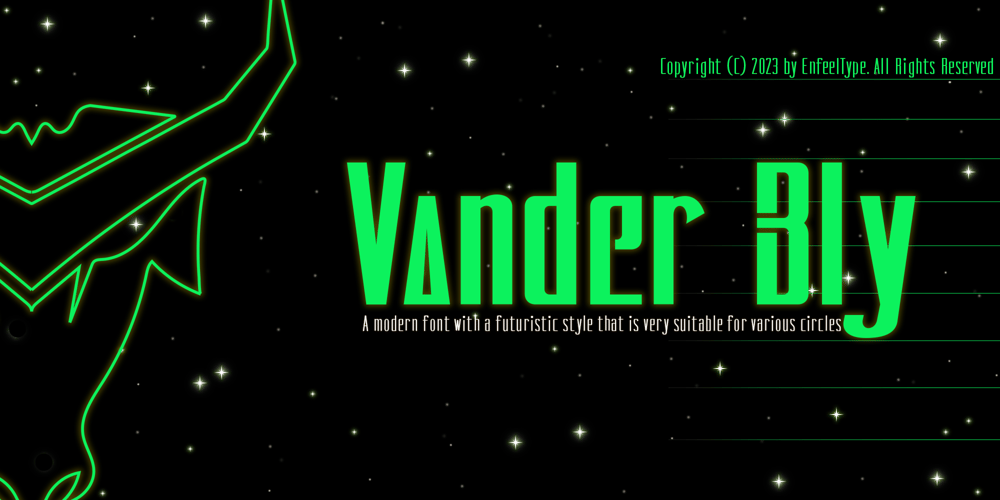
Vander Bly Font Family was designed by Muhammad Naufal and published by Enfeeltype. Vander Bly contains 9 styles and family package options. Vander Bly is a modern font with a futuristic style that is very suitable for various circles. This font is designed in such a way for needs such as selling all products and services in the world, design, fashion and TV shows, etc. This font is perfect for needs like creating products, brochures, invitations and tickets. It has a wide range of applications and will suit any type of design.With it, you can create a unique brand that reflects your style and taste. It’s a great option for any business because of its versatility, as well as its modern design and futuristic style. It includes various ligatures and fractions, and is perfect for creating all kinds of headlines and logos.